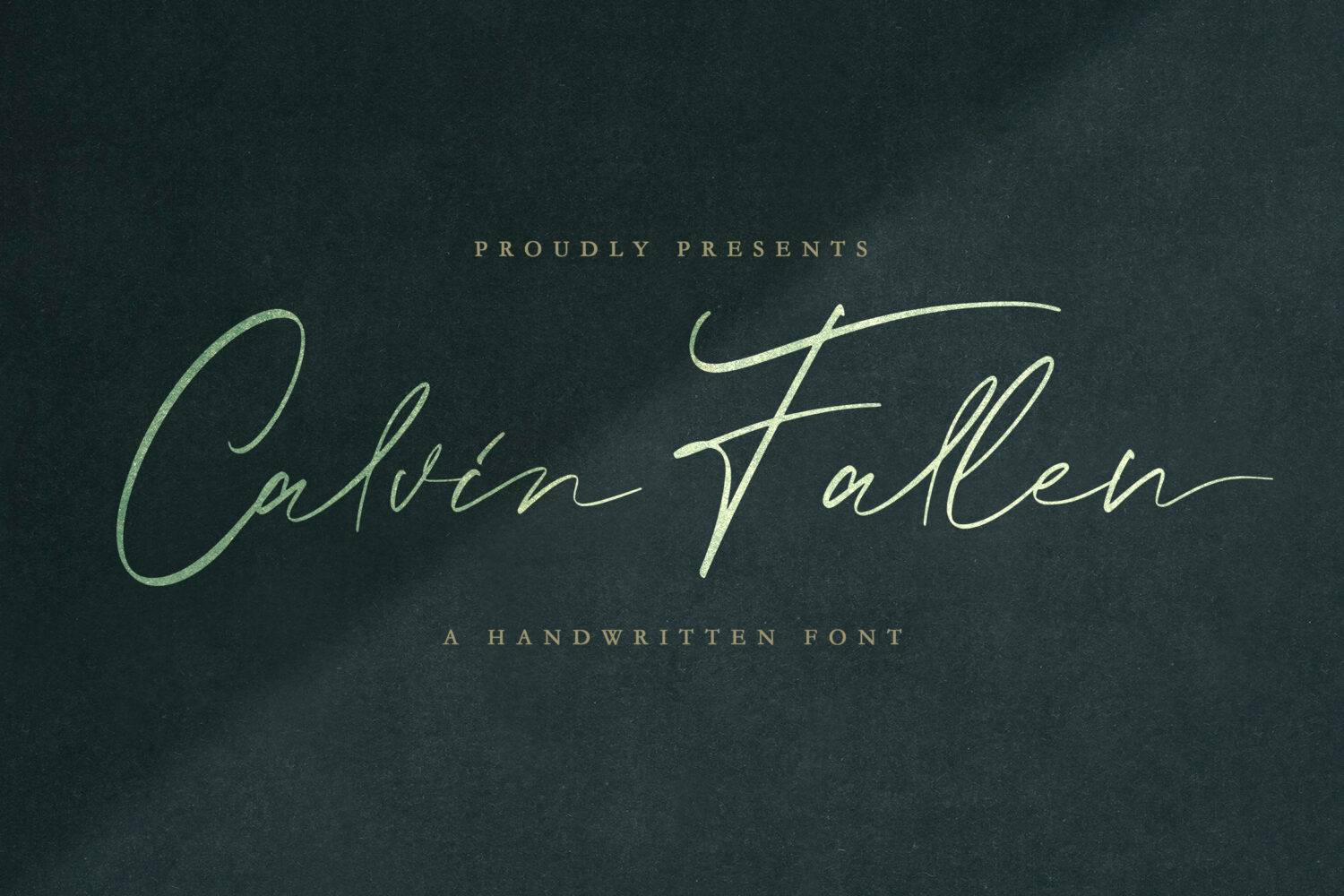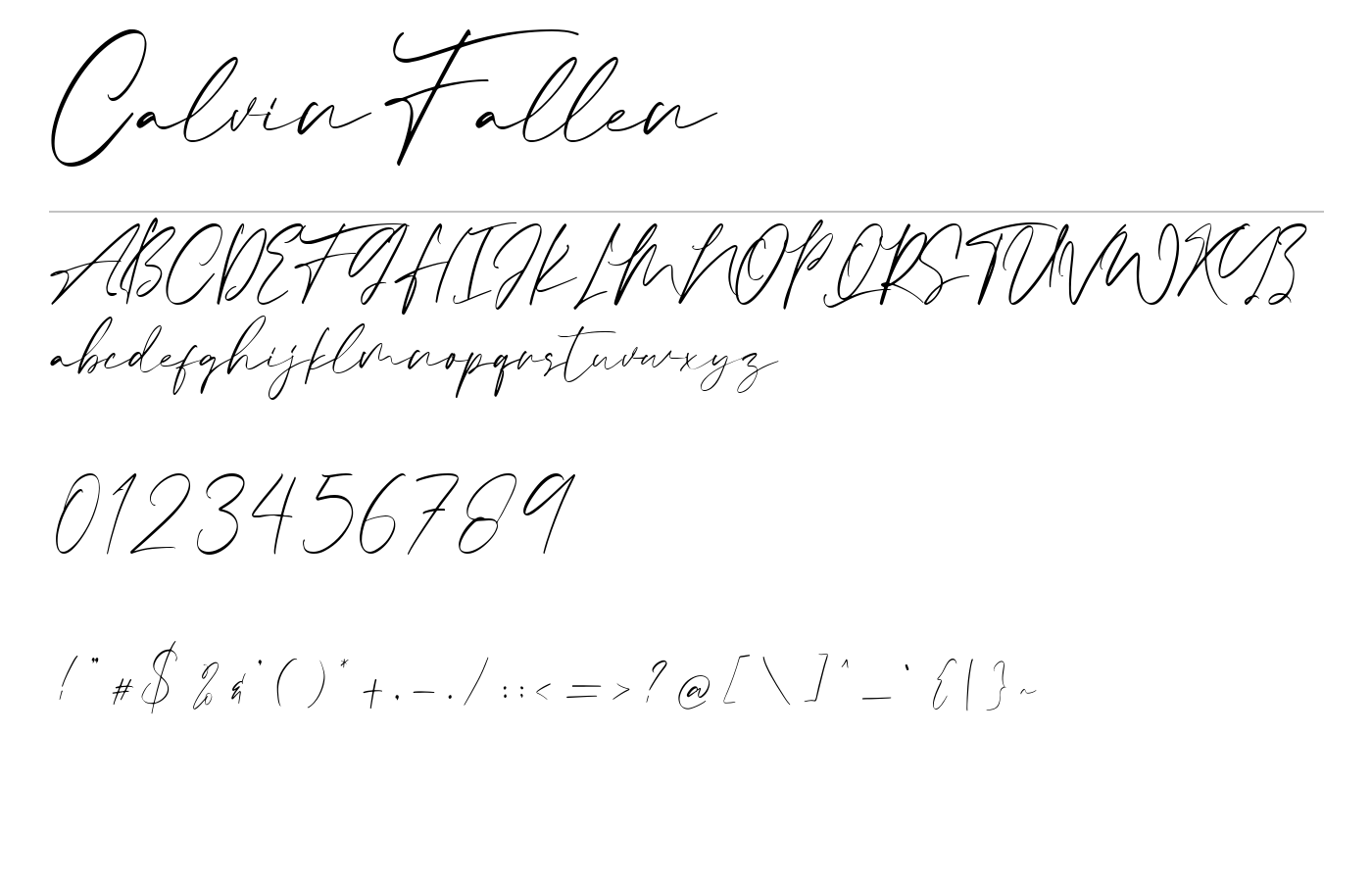
Calvin Fallen is a delicate, elegant script font that mimics natural, flowing handwriting with thin, graceful strokes and a slightly irregular, artistic touch. Its slender letterforms and airy spacing give it a sophisticated, personal feel, making it perfect for wedding invitations, branding, and upscale editorial designs that seek a refined yet approachable charm. This font works beautifully for headlines and decorative text where a subtle, stylish signature effect is desired.
Calvin Fallen
About Calvin Fallen
| Font family | Calvin Fallen |
| Designer | StringLabs |